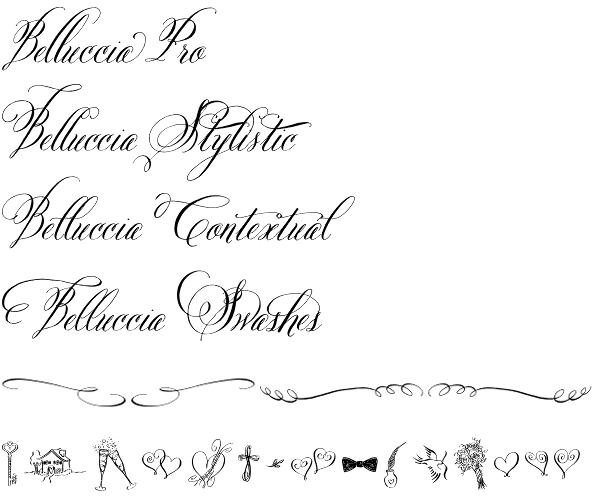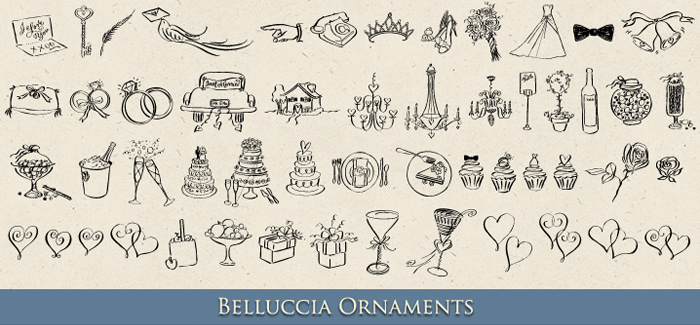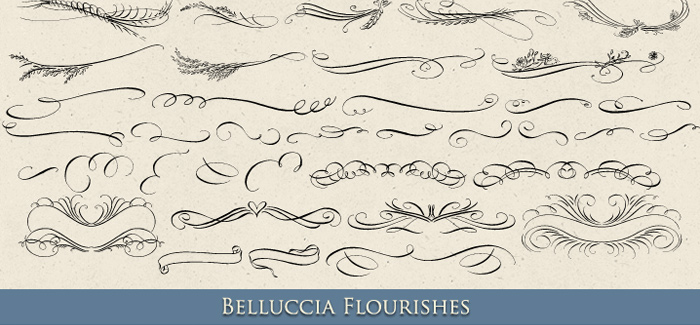
Belluccia – One of the Best Font for Wedding Invitations
Belluccia font is probably one of the best choices for wedding invitations, greeting cards or emotional messages. Many of you probably don’t remember that Debi Sementelli (designer of best selling Cantoni font) along with Brian Bonislawsky designed it in 2011. Belluccia has very sensible feeling of natural hand-written calligraphy flavoured with elegant and well-designed swashes and endings that complement the overall look of the font. Customizing a letter, word or phrase is very easy – Belluccia is developed with several separately sold fonts with Stylistic alternates, Contextual alternates, Swashes, Ornaments, Borders and Flourishes, that actually break the limits of personality and give you the real chance to act like a Pro Calligrapher. Belluccia font family has MyFonts Best font Award for 2011.
Designers: Debi Sementelli, Brian J. Bonislawsky
Publisher: Correspondence Ink